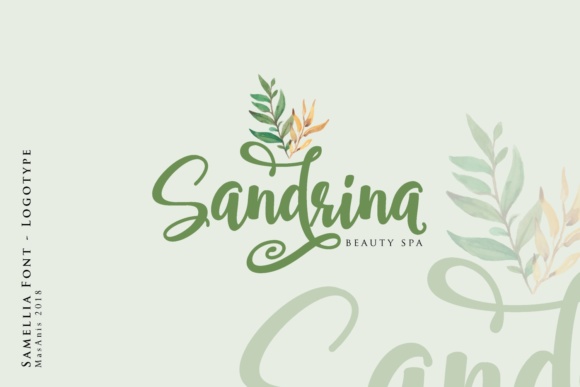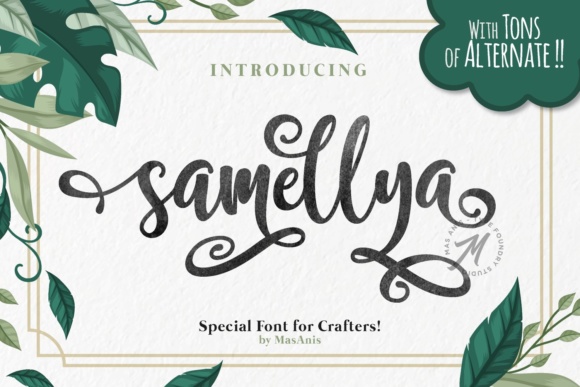
Freebie Wednesday: Samellya Font.
Samellya Font (by Mas Anis) is a font created specifically for crafters. This stunning font allows you to create gorgeous designs. With all its swashes and alternates, its the perfect font to use over and over for each design project. It’s free at Creative Fabrica for the next 5 days so be sure to check it out.